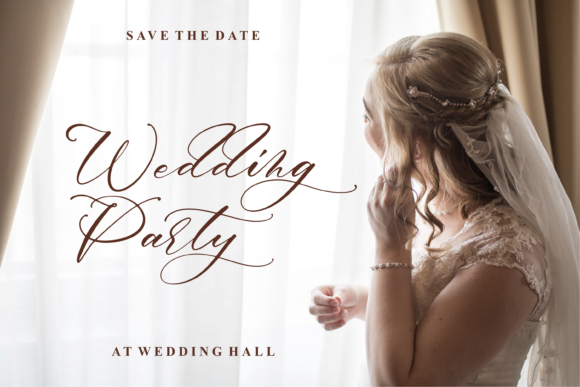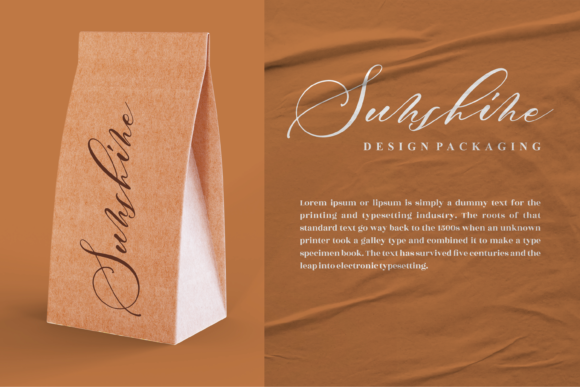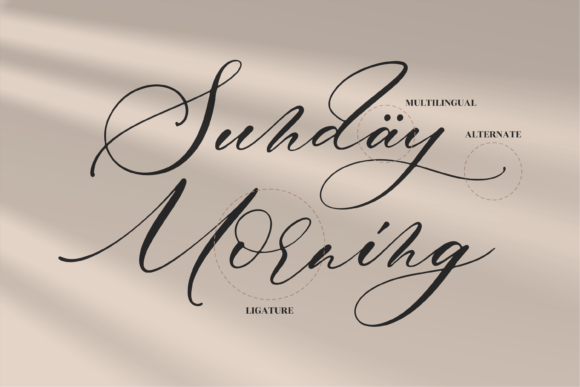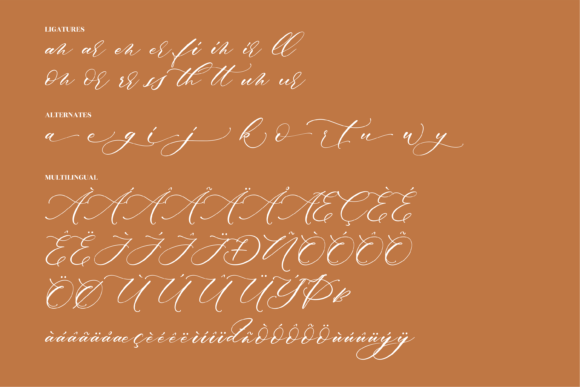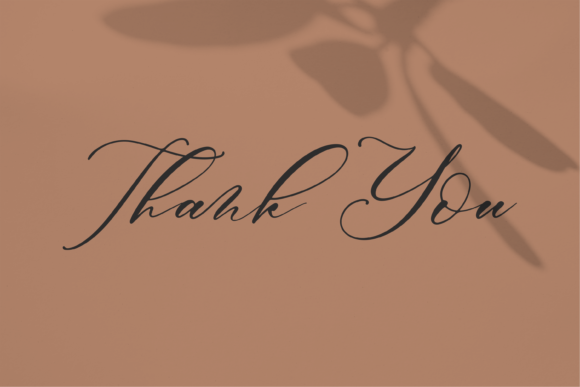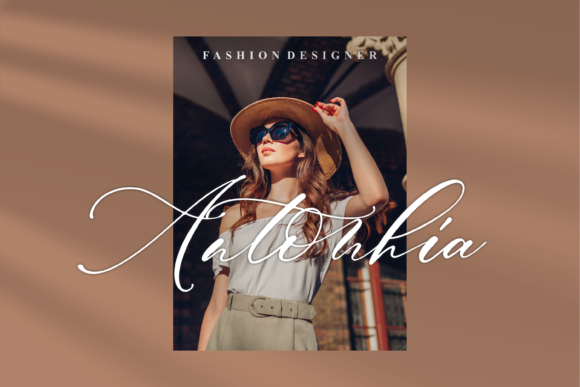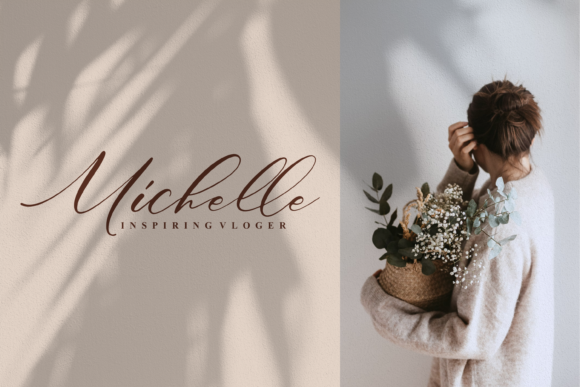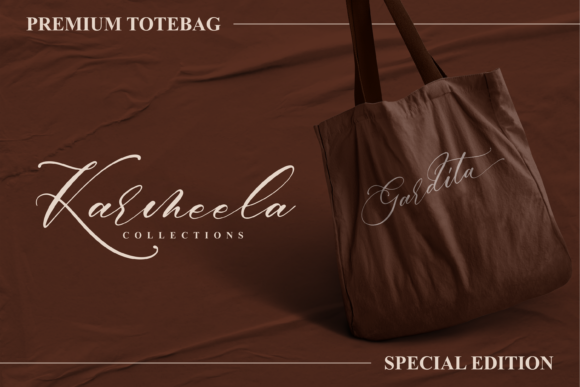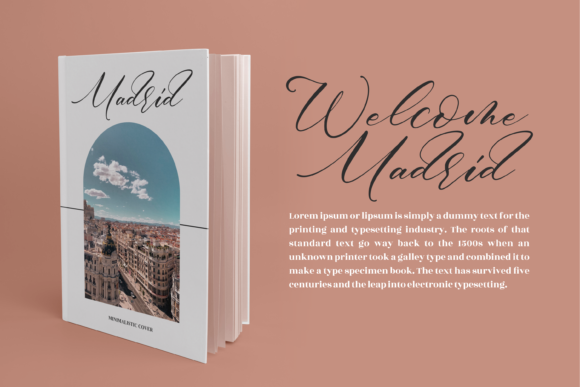
About Gardita Letter Font
Gardita Letter is a beautiful and light handwritten font with a unique feel and a stunning impact. It will add a luxury spark to any design project that you wish to create! This font is PUA encoded which means you can access all of the amazing glyphs and ligatures with ease!